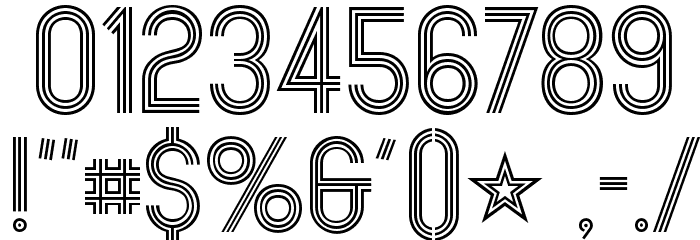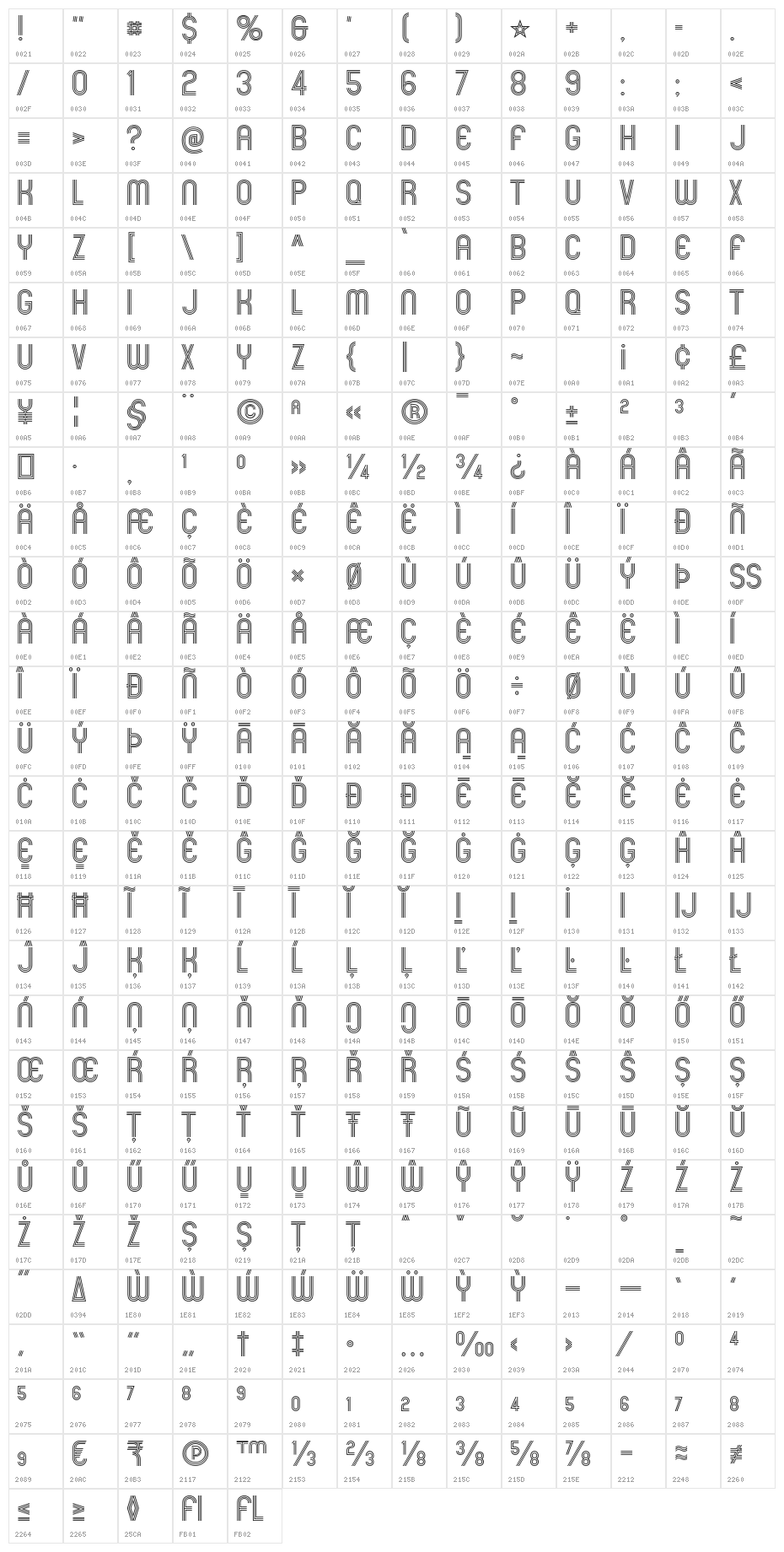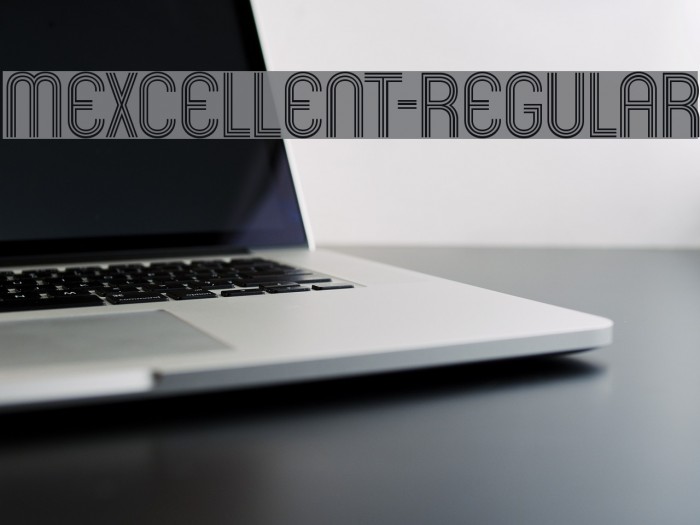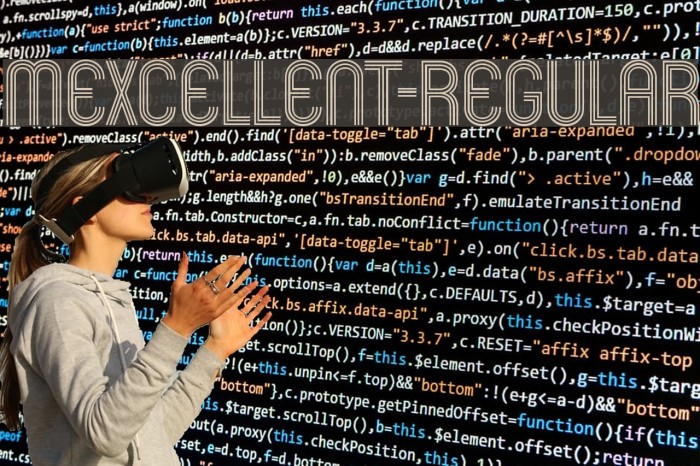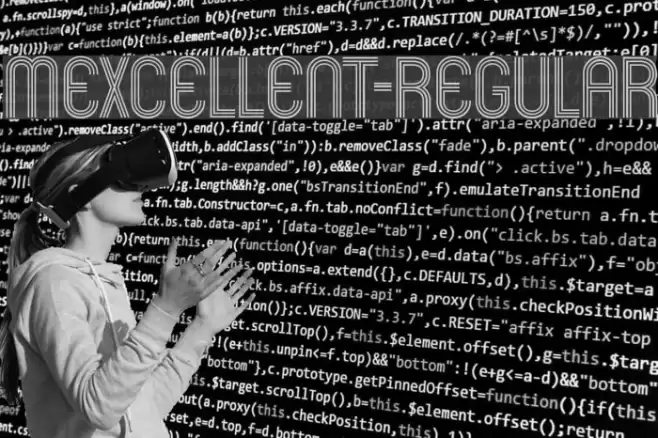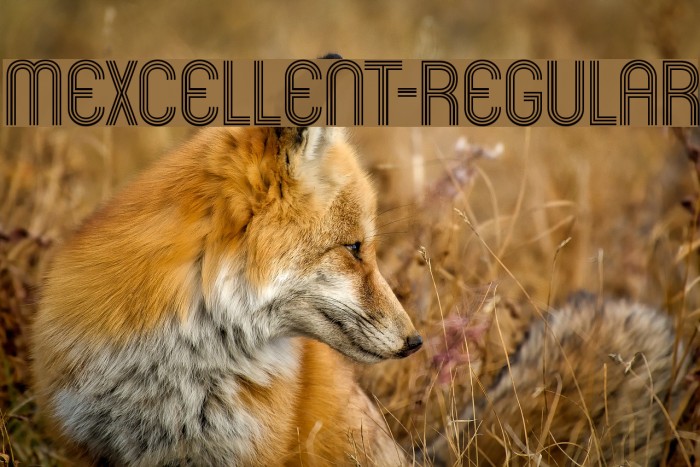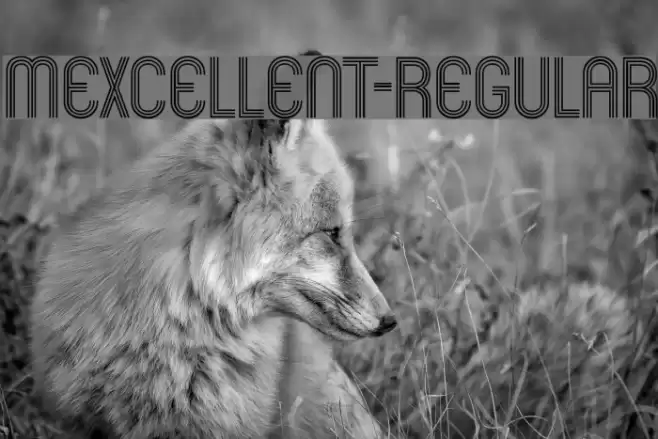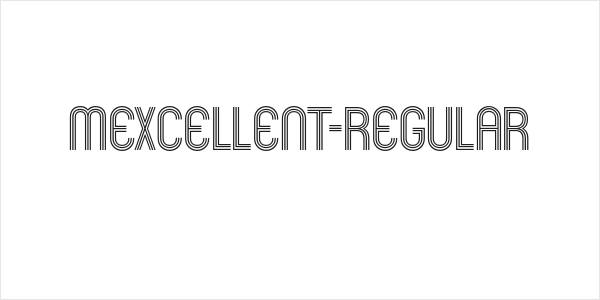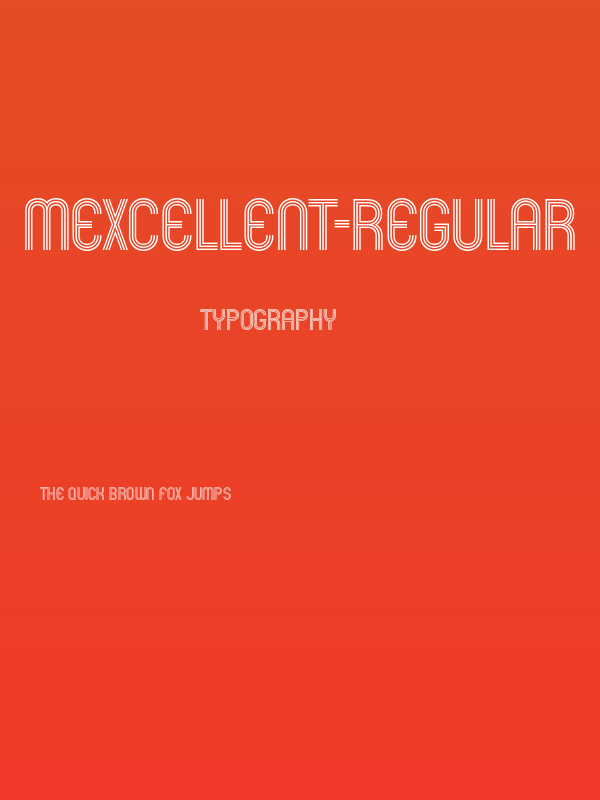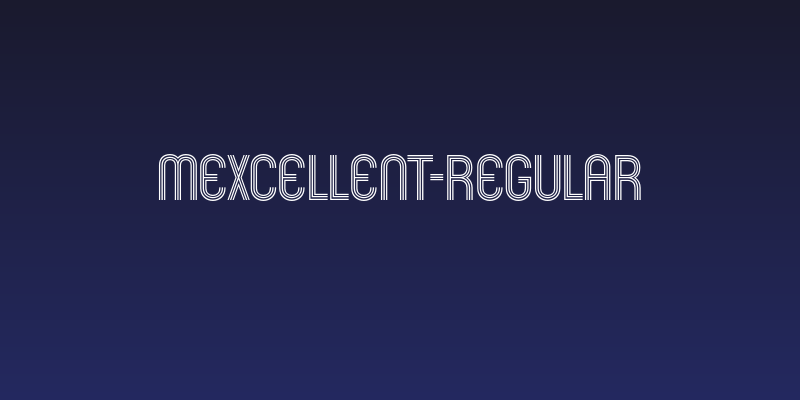
Mexcellent-Regular Font
Mexcellent-Regular Description
This font features a unique and eye-catching design with a multi-line, geometric structure. Each character is composed of parallel lines that create a sense of depth and dimension, making it stand out in any design. The uppercase and lowercase letters maintain a consistent style, with clean lines and a modern aesthetic. The numerals and special characters follow the same pattern, ensuring uniformity across all elements. This font is ideal for projects that require a bold and distinctive look, such as posters, logos, and headlines.
| Proposed Projects | Ideal for posters, logos, headlines, and any design requiring a bold, modern look. |